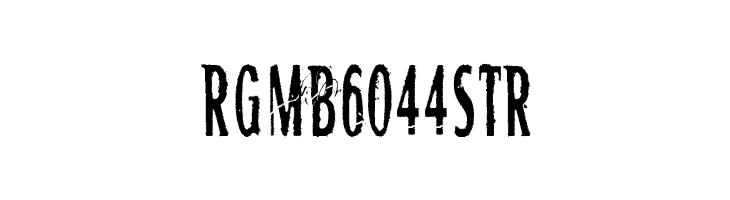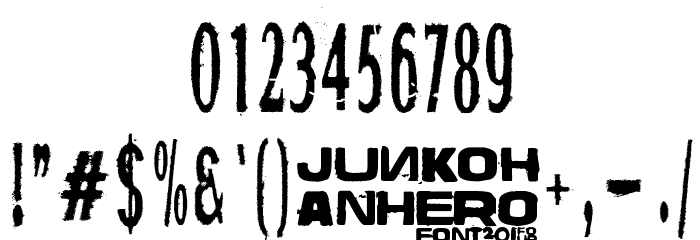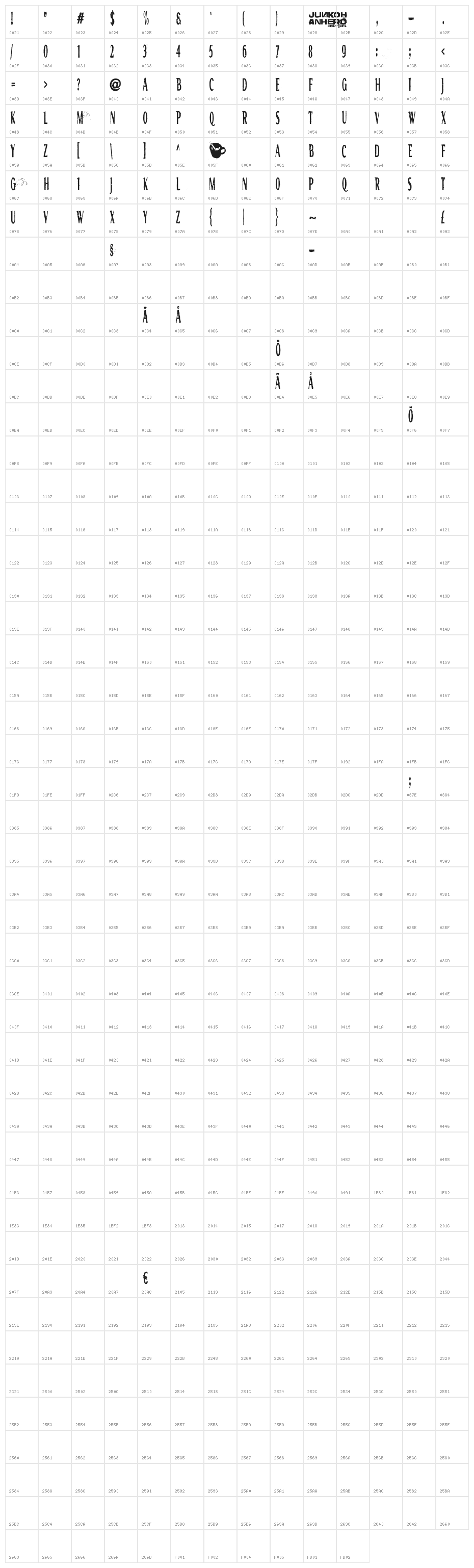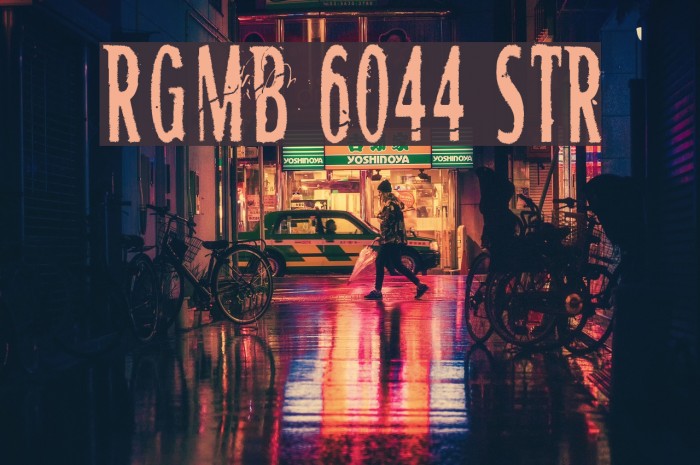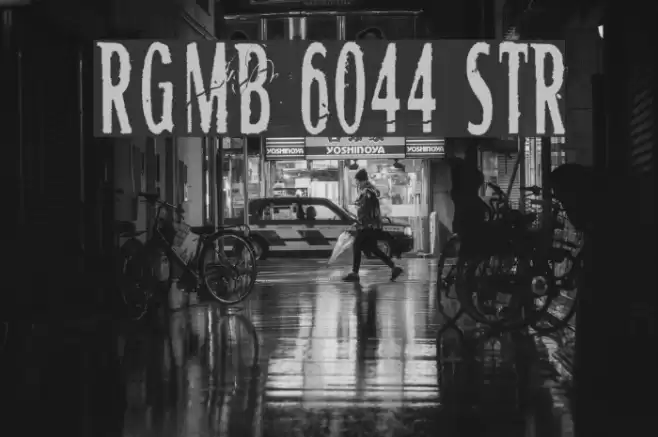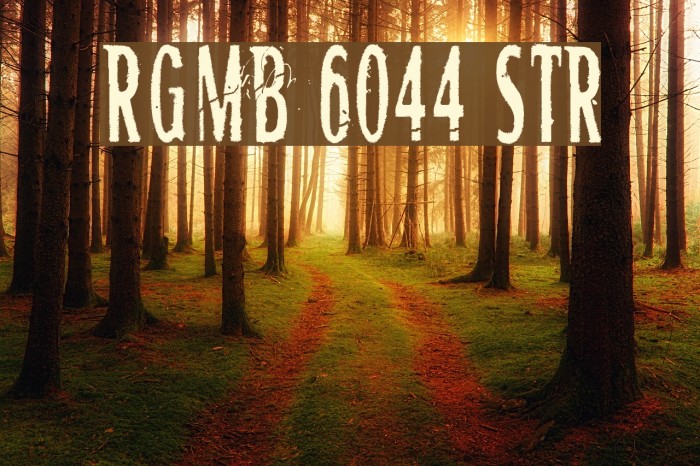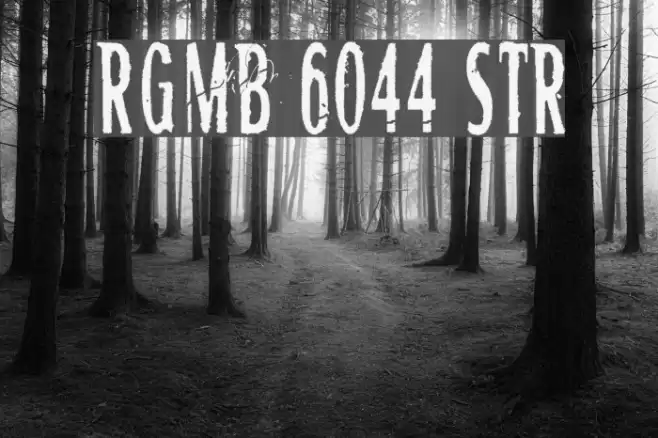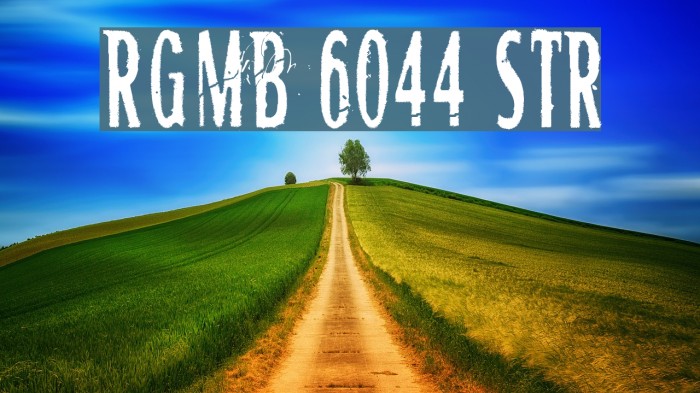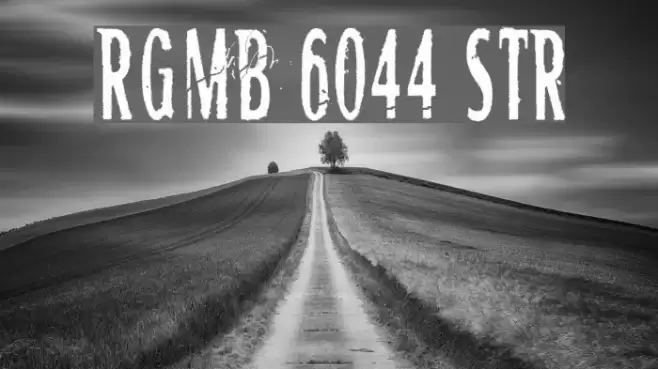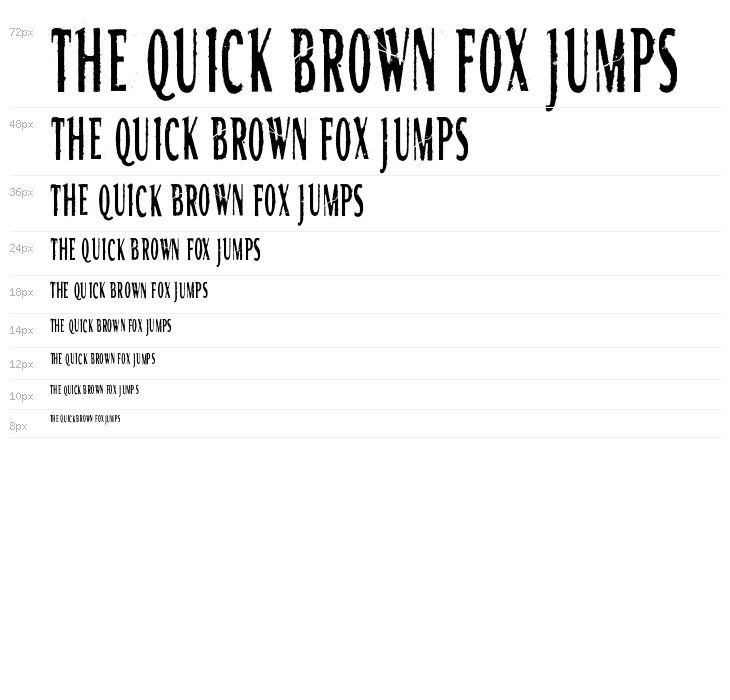
RGMB 6044 Str Font
RGMB 6044 Str Description
This font features a distressed, grunge style with a bold and impactful presence. The uppercase letters are tall and narrow, with uneven edges that give a worn, vintage appearance. The lowercase letters maintain the same rugged texture, creating a cohesive look throughout. Numbers and special characters follow the same design, ensuring consistency. The font's rough texture and irregularities suggest a hand-crafted feel, making it ideal for projects that require a raw, edgy aesthetic. Its boldness ensures readability while the unique style adds character and depth.
| Proposed Projects | Ideal for music album covers, posters, branding for edgy or alternative brands, and any design needing a bold, vintage touch. |